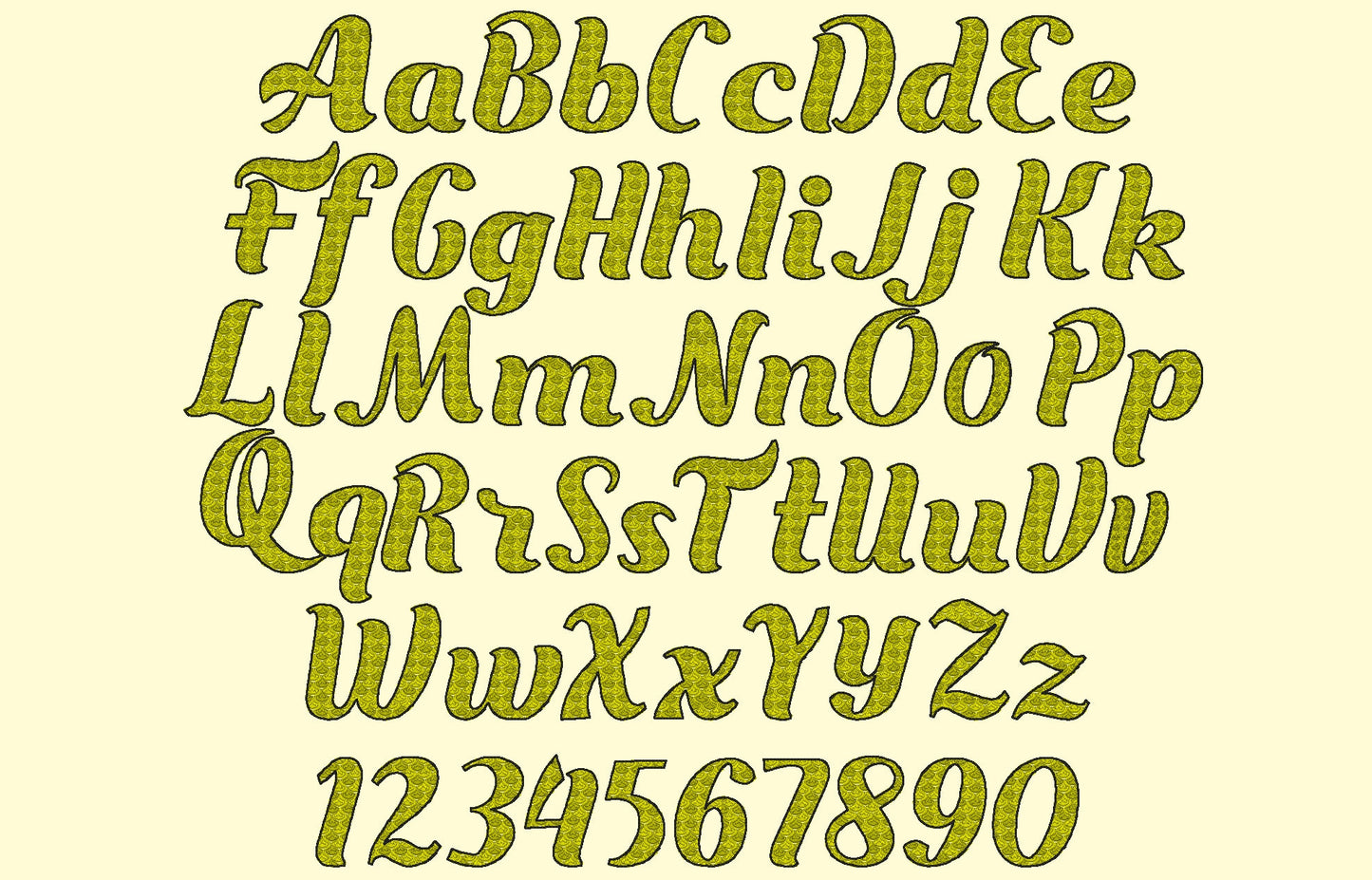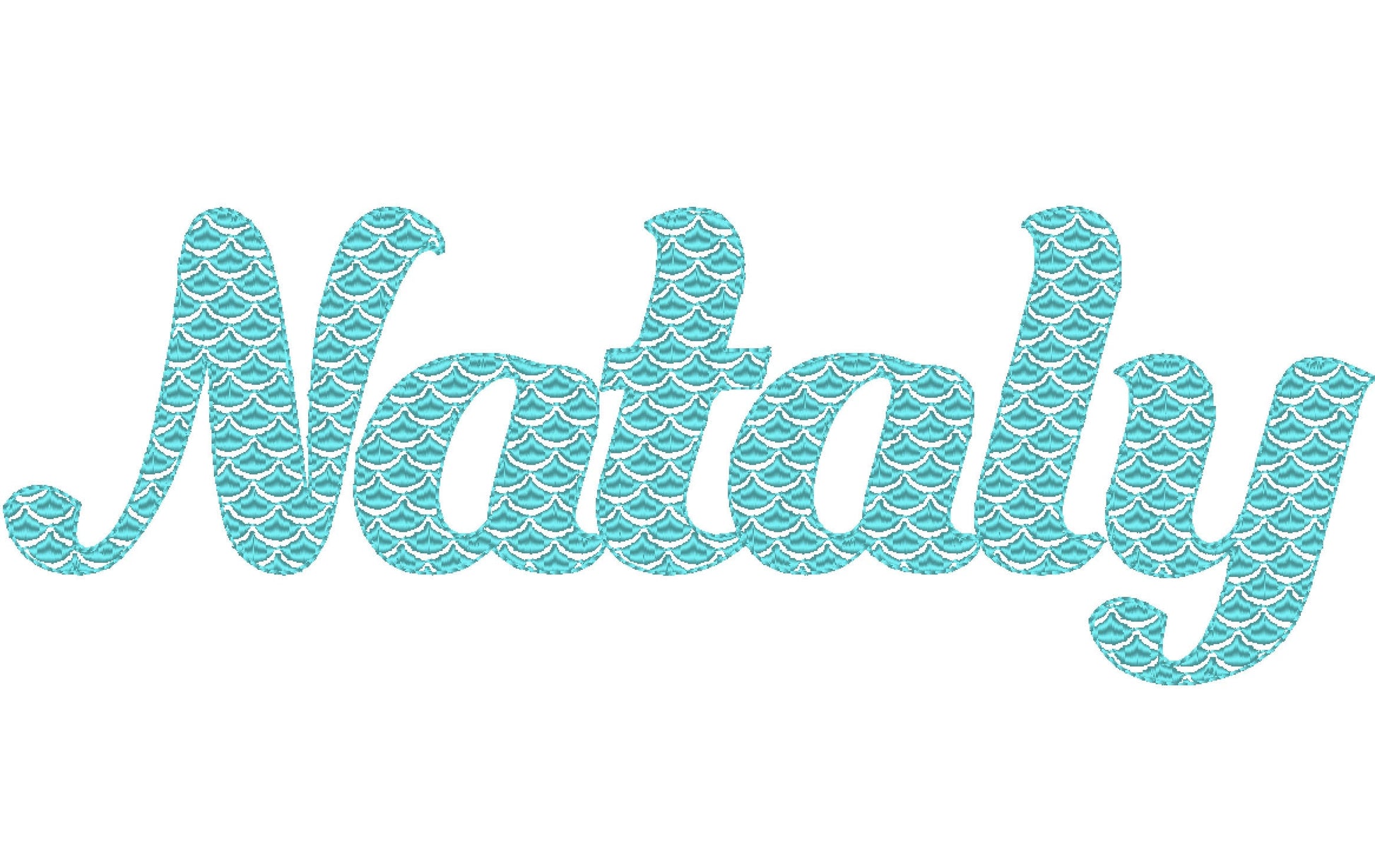
Or click to open the linkA scalloped mermaid font, open inside with satin scallops and a bean stitch outline. Magical for girls' names on shirts, towels and beach bags.
Uppercase and lowercase letters and numbers in six sizes: 1.8, 2.2, 2.7, 3.3, 3.8 and 4.2 inches.